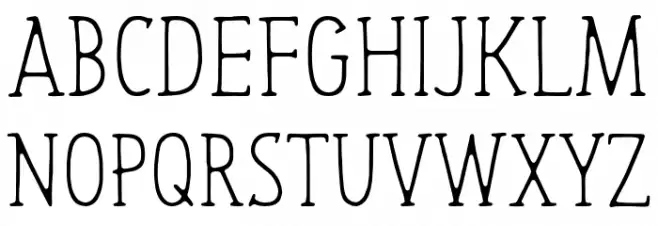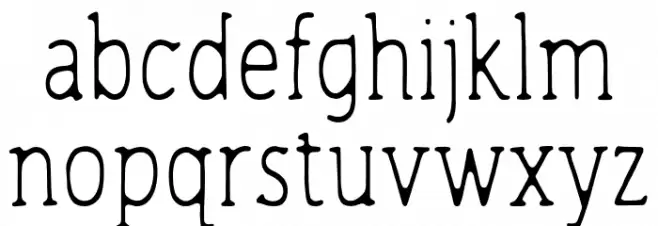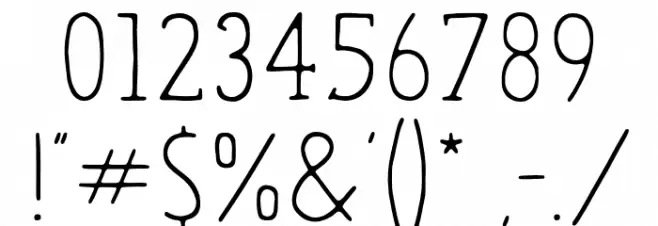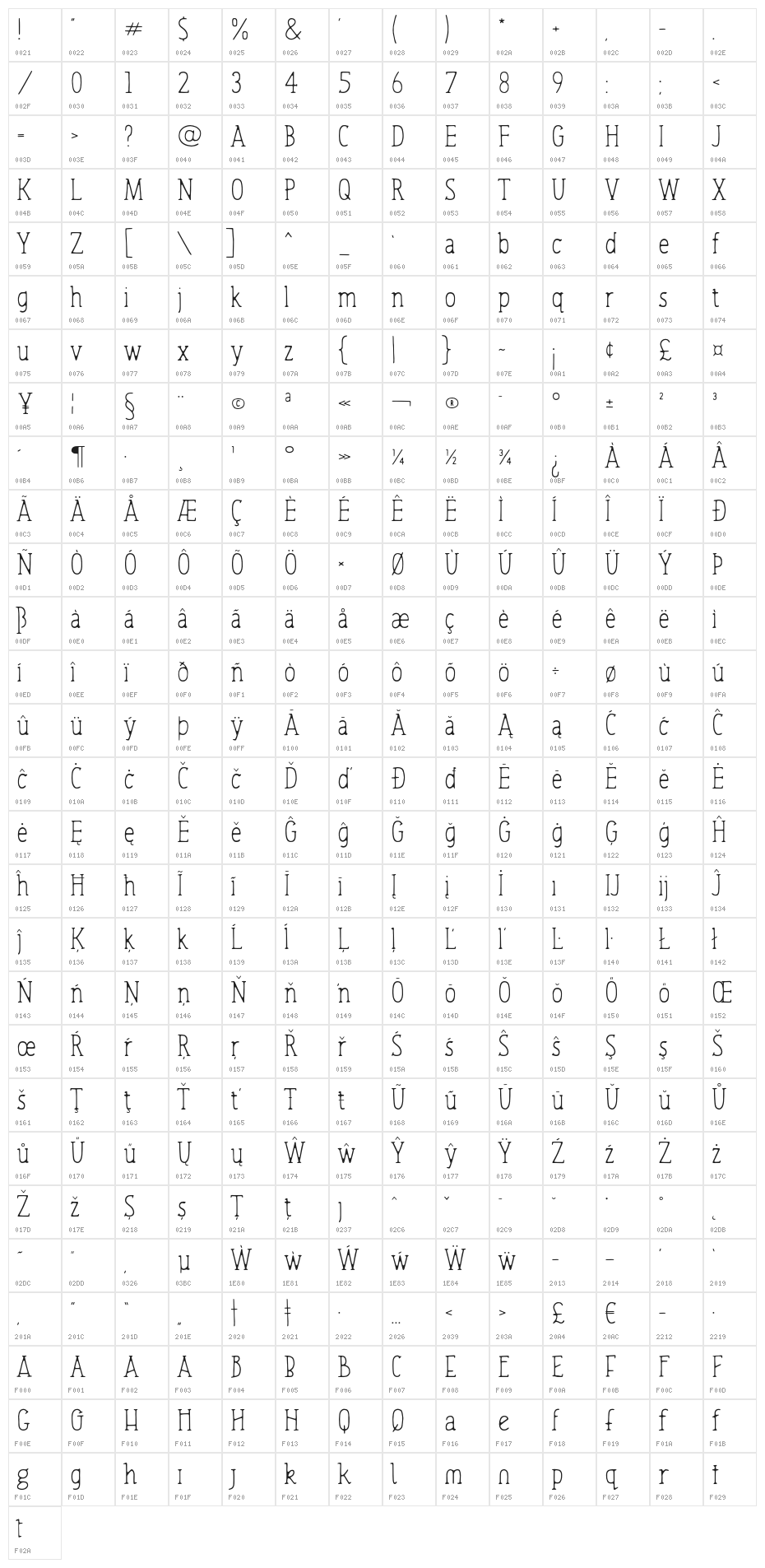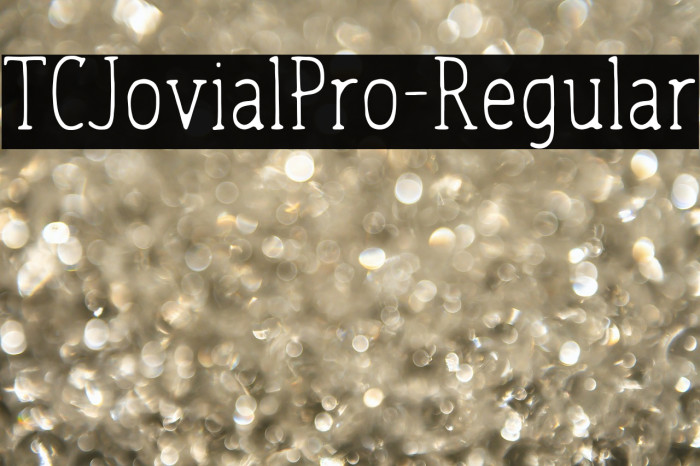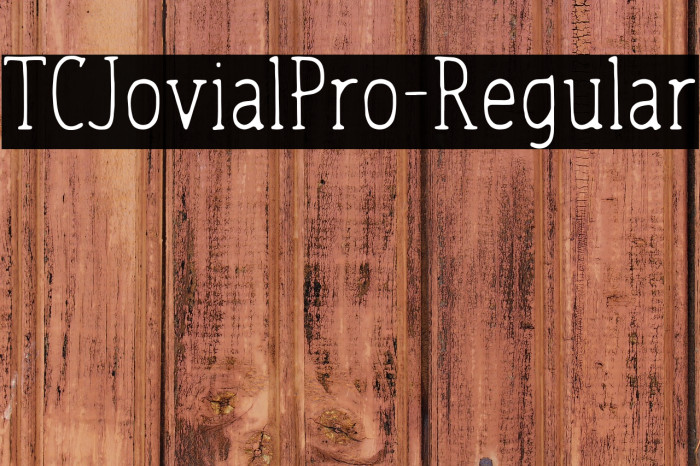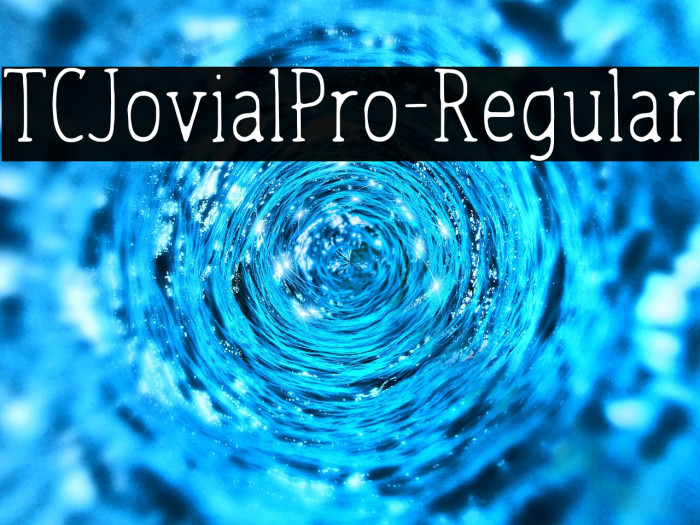
TCJovialPro-Regular Font
TCJovialPro-Regular Description
This font features a playful and slightly whimsical design, characterized by its hand-drawn appearance. The letters have a casual, informal style with uneven strokes that add to its charm. The uppercase and lowercase letters are distinct, with a slight slant and varying stroke thickness that gives a lively and dynamic feel. The numbers and special characters maintain this playful aesthetic, making it suitable for creative projects. The overall look is approachable and friendly, perfect for adding a touch of personality to any design.
A playful, hand-drawn font with a whimsical and informal style.
- Proposed Projects: Ideal for children's books, greeting cards, playful branding, and creative posters.
- Category: Handwritten
- Use Case: Headlines, Logos, Creative projects